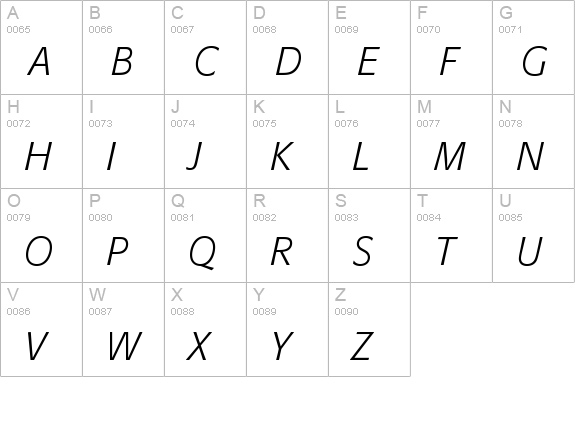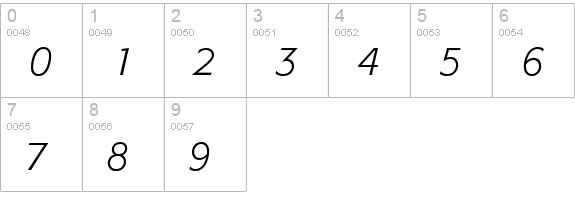
Formata Light Italic Font Details
Formata Light Italic is a refined, elegant, italic variant in the Formata typeface family \xE2\x80\x94 well suited to elegant body text, refined sub-headings, and luxury branding.
Formata Light Italic is a modern and elegant font that combines sleek lines with a touch of sophistication. Its light weight and italic styling make it perfect for adding a touch of elegance to any design project. The soft curves and subtle slant create a sense of movement and fluidity, making it a versatile choice for both headers and body text. This font is not only stylish but also incredibly versatile, making it suitable for a wide range of design applications. Whether you're creating a website, designing a logo, or working on a print project, Formata Light Italic is sure to add a touch of class to your work. Best of all, this font is available for free download at FontsMarket.com. So why wait? Add Formata Light Italic to your font collection today and elevate your designs with its unique blend of style and sophistication.